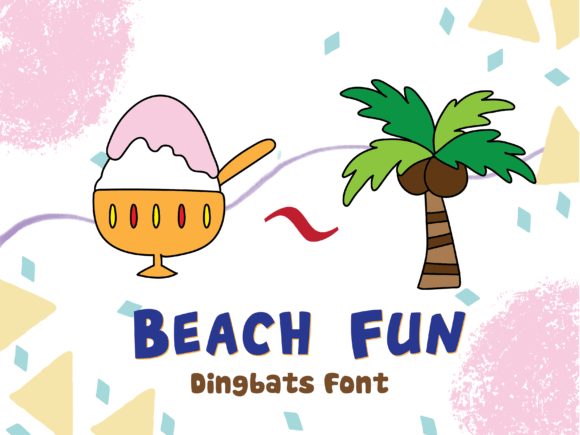
Beach Fun Font: The Ultimate Dingbat Font for Your Coastal Creations
Are you tired of using the same old fonts for your designs? Look no further! If you’re looking for a font that’s as fun and carefree as a day at the beach, then you’re in luck. Introducing the Beach Fun Font, a Dingbat font packed with beach-themed illustrations that will add a touch of coastal cool to any project.
What Makes Beach Fun Font So Special?
This amazing font is like a beach party in your computer, complete with a wide range of illustrations that will make your designs stand out. From palm trees and sunglasses to ice cream and seashells, this font has everything you need to create fun and playful designs that scream beachy vibes.
- Palm Trees: Add a touch of tropical paradise to your designs with our palm tree illustrations.
- Sunglasses: Give your designs a cool and laid-back vibe with our trendy sunglasses illustrations.
- Ice Cream: Who doesn’t love ice cream on a hot beach day? Our ice cream illustrations are the perfect addition to any design.
- Seashells: A beachy essential, our seashell illustrations will add a touch of the coast to any project.
Design Ideas to Get You Started
So, what can you create with the Beach Fun Font? The possibilities are endless! Here are a few ideas to get you started:
- Beach Volleyball Tournament Flyer: Create a fun and eye-catching flyer for your next beach volleyball tournament.
- Funny Meme: Design a hilarious meme about getting sand in your swimsuit – because let’s face it, it’s a beachy problem we can all relate to.
- Beach Party Invitation: Invite your friends to a beach party with a custom invitation featuring the Beach Fun Font.
- Coastal-Themed Social Media Posts: Add a touch of the beach to your social media posts with custom graphics featuring the Beach Fun Font.
Why Choose Beach Fun Font?
So, why should you choose the Beach Fun Font for your next project? Here are just a few benefits:
- Unique and Eye-Catching: This font is sure to grab attention and add a touch of personality to any design.
- Versatile: This font can be used for a wide range of projects, from flyers and invitations to social media posts and more.